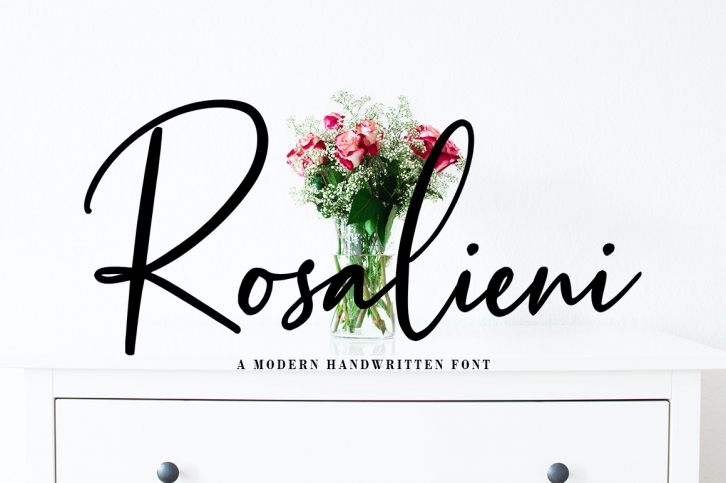
Rosalieni is a lovely and stylish handwritten font suitable for a wide spectrum of applications. From greeting cards to headlines, this font will guarantee a romantic touch to each of your creations!